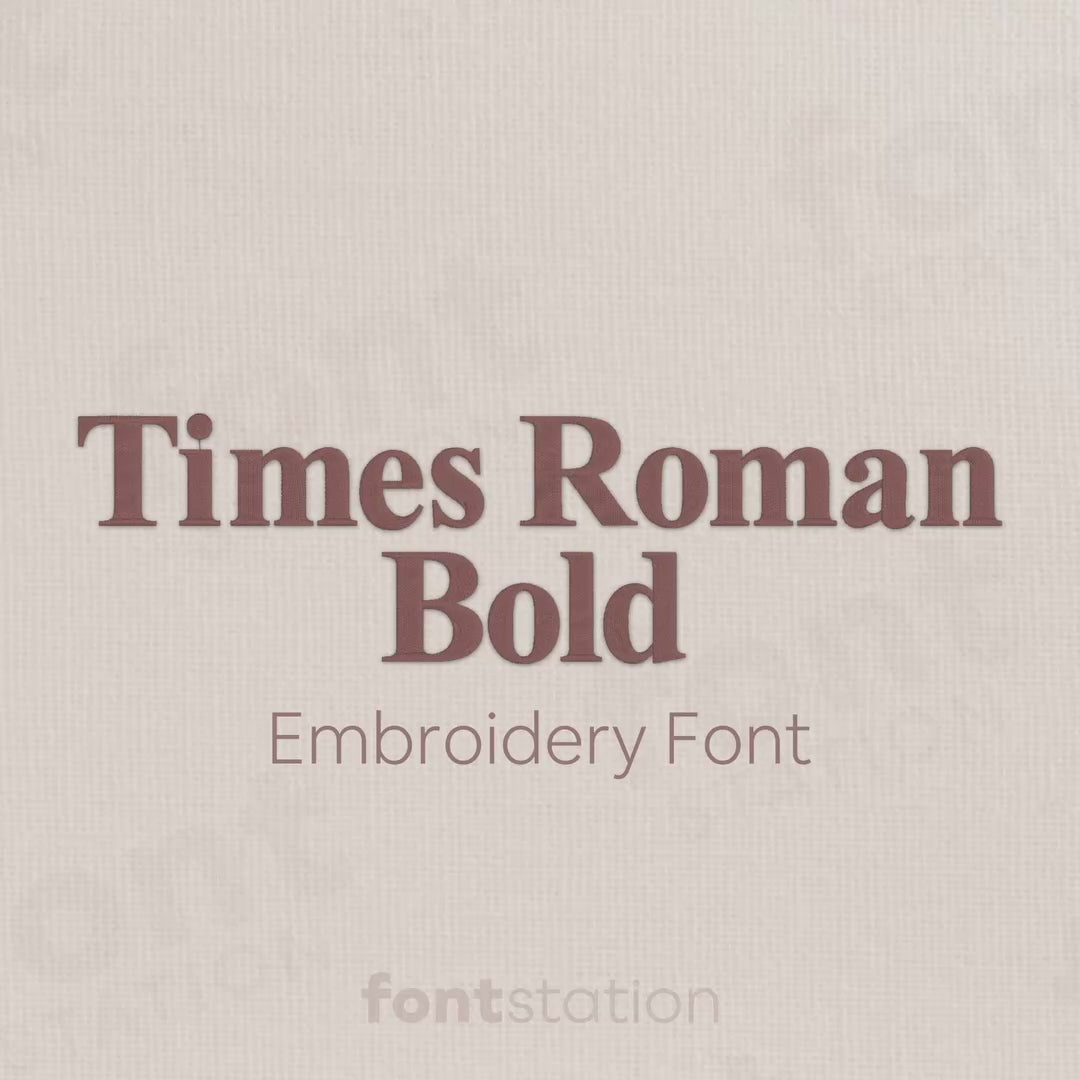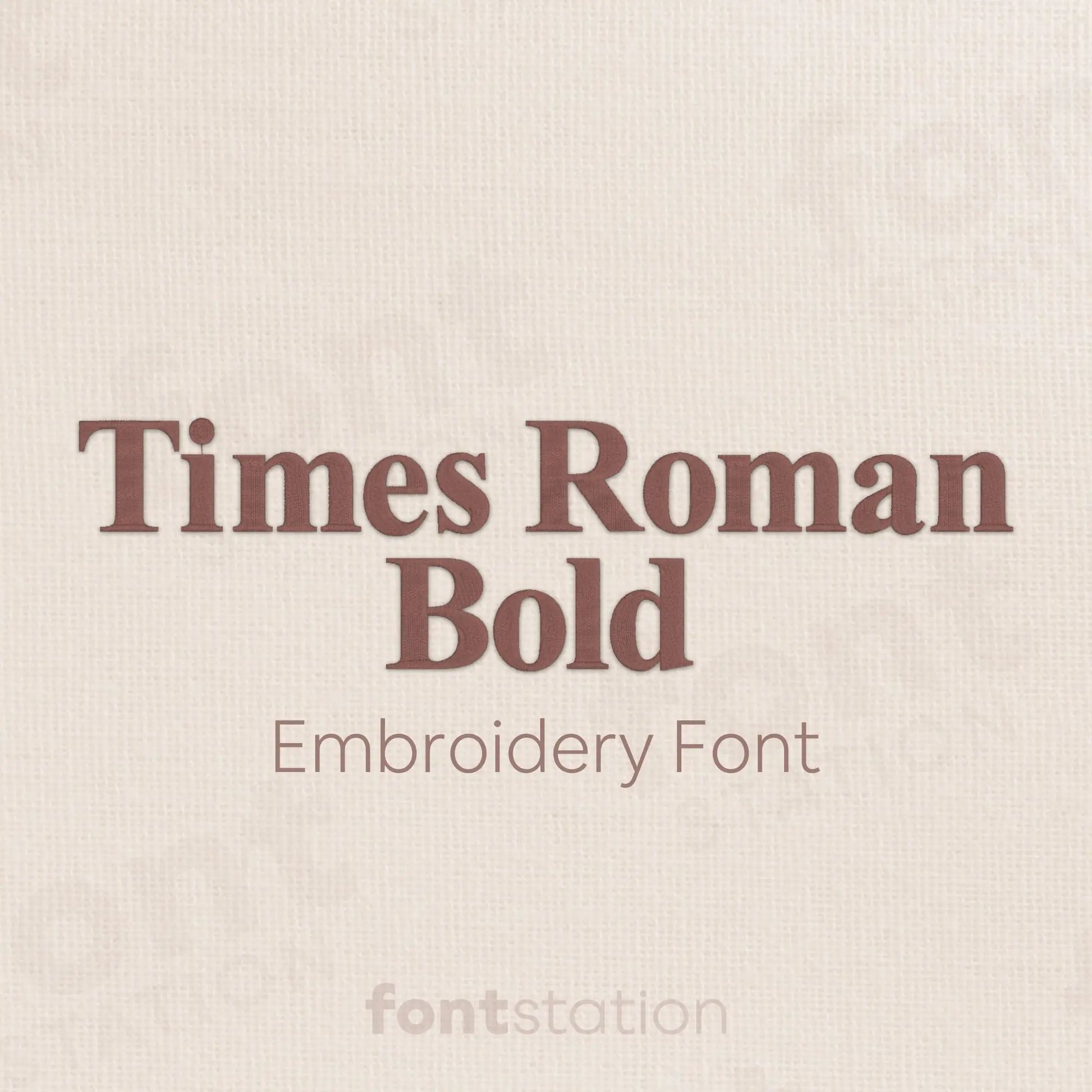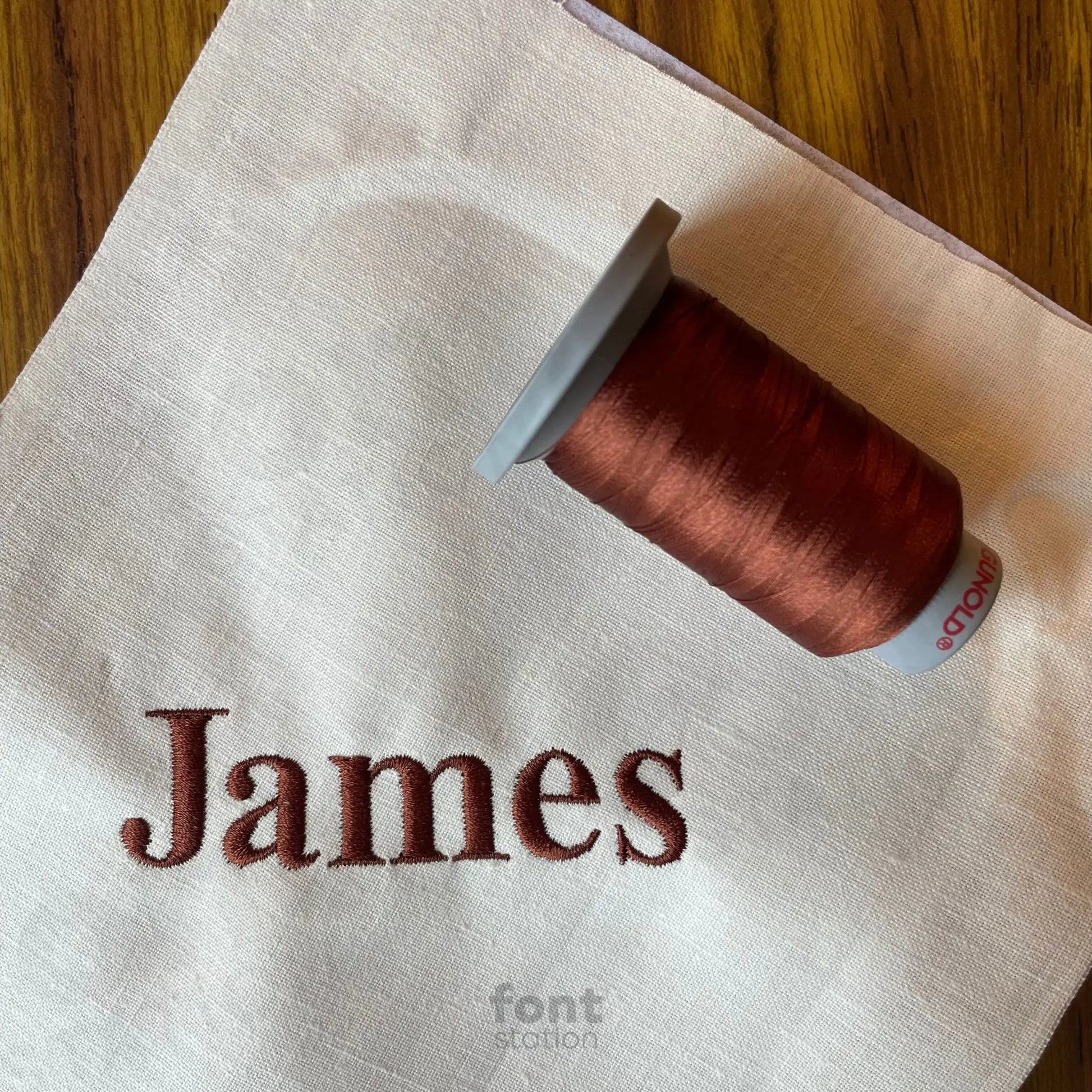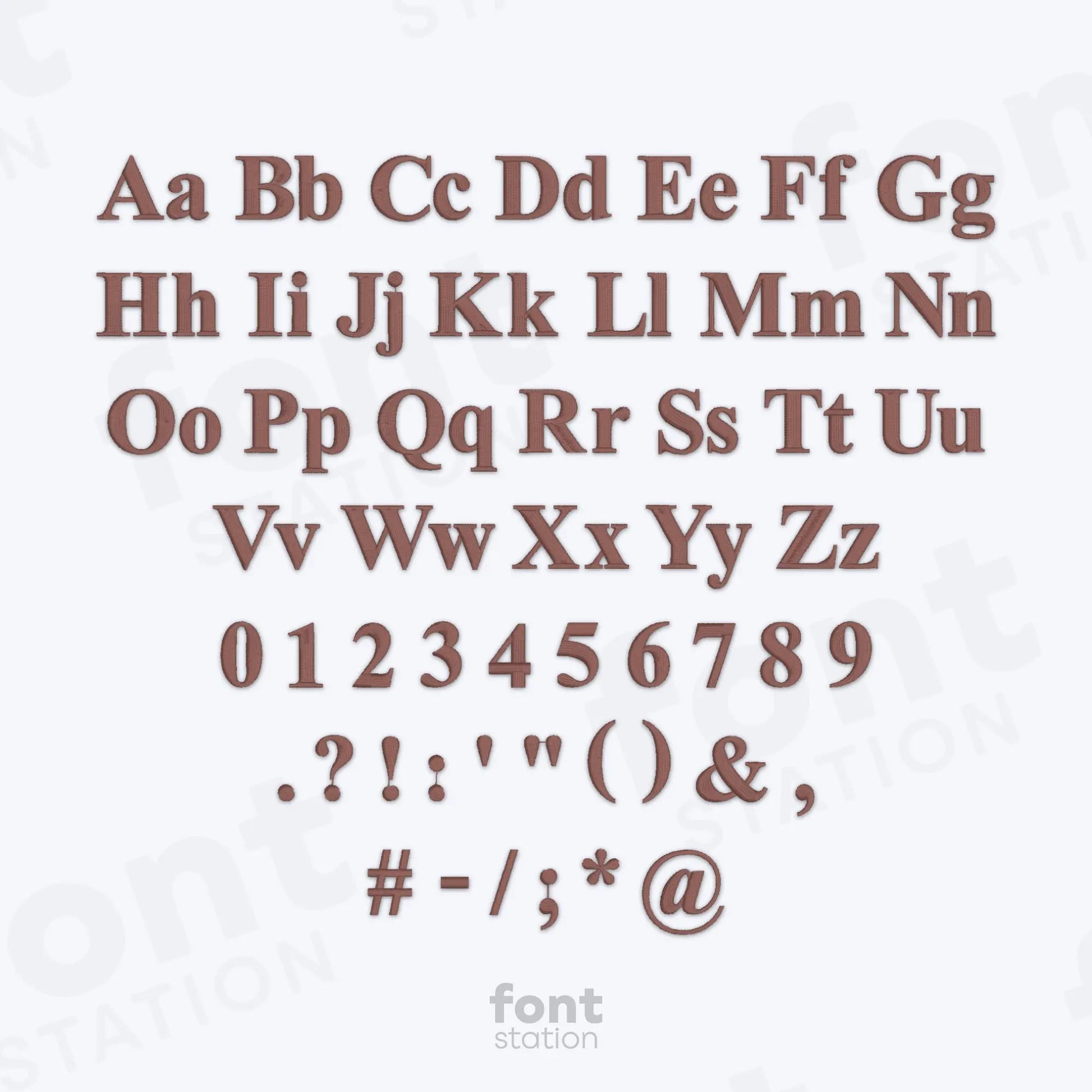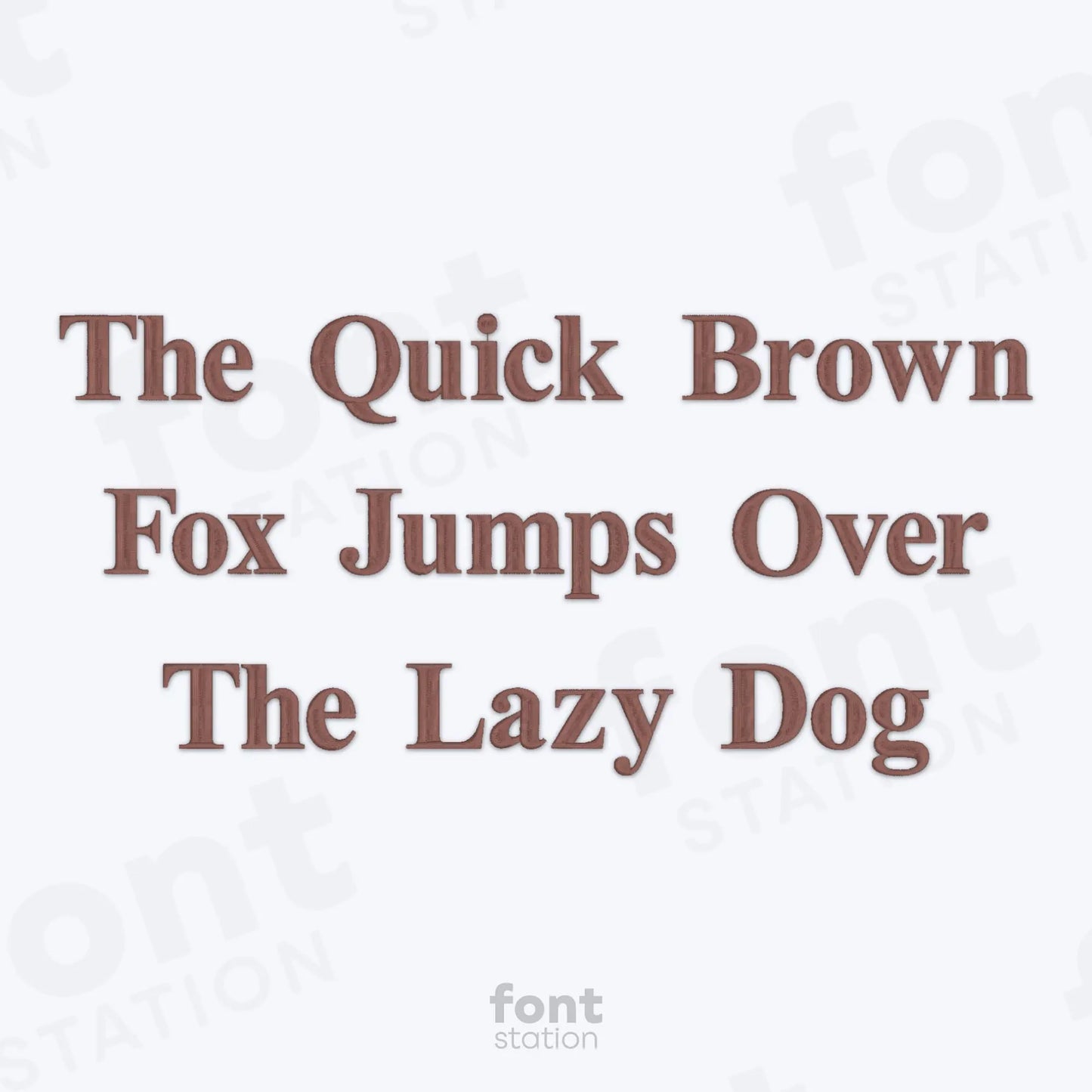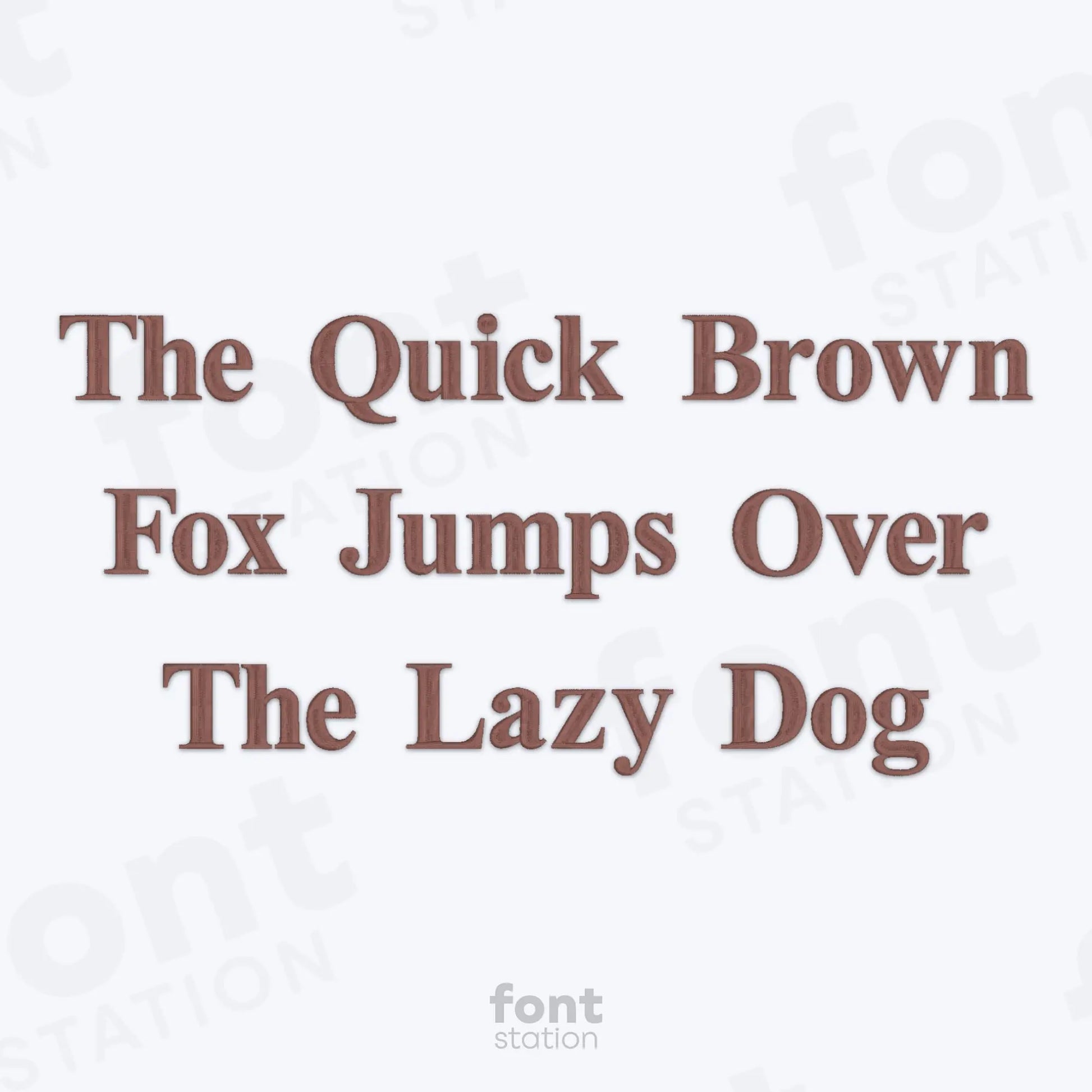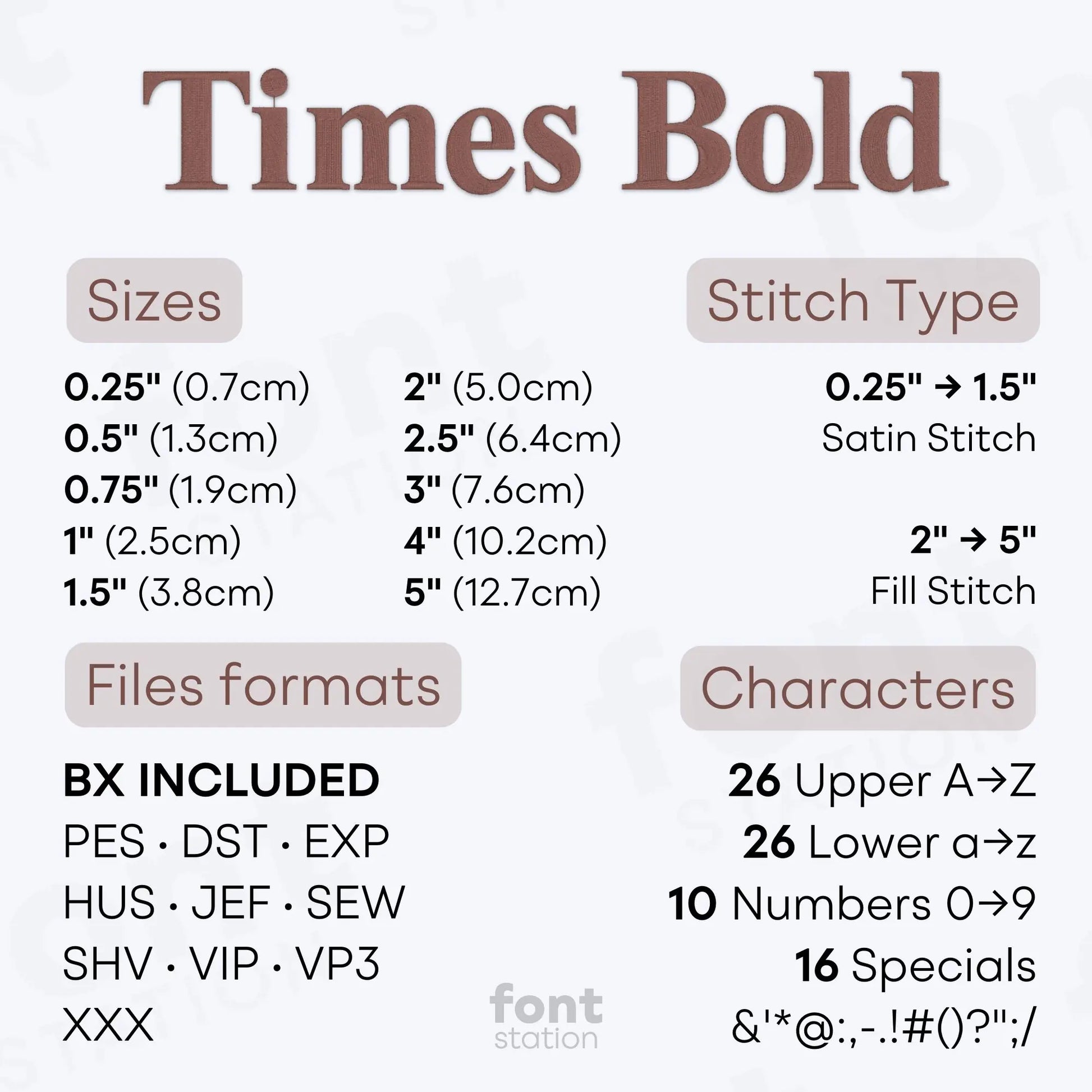
Times Roman Bold Embroidery Font
Introducing our Times Roman Bold embroidery font, a classic serif alphabet with elegant letters that stitch cleanly on your embroidery machine. Ideal for timeless designs and any formal project.
About the Times Roman Bold Embroidery Font
Characters: 26 uppercase, 26 lowercase, 10 numbers, and symbols & ' * @ : , - . ! # ( ) ? " ; /
Our Times Roman Bold embroidery font brings a classic serif elegance and timeless style to your embroidery projects.
This refined machine embroidery font features a strong serif alphabet inspired by the iconic Times Roman typeface, perfect for monograms, formal lettering, business logos, or traditional embroidery designs. With sharp serifs and well-balanced letters, it delivers a clean, readable look across a wide range of projects.